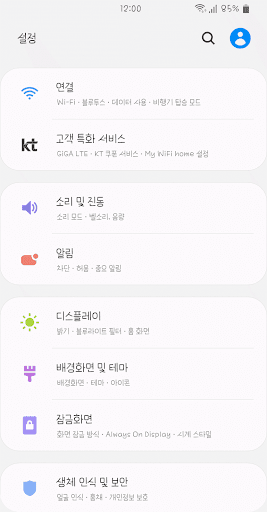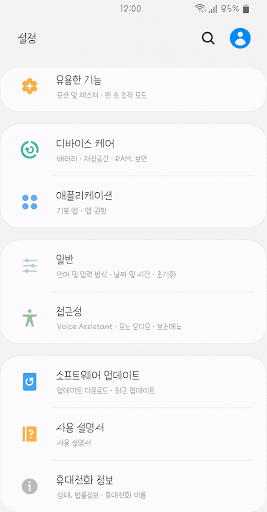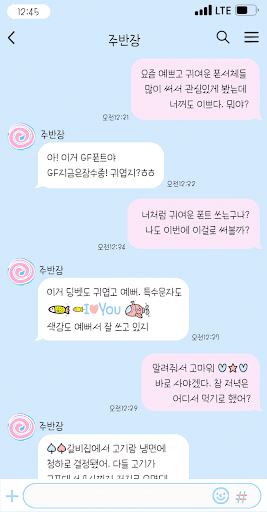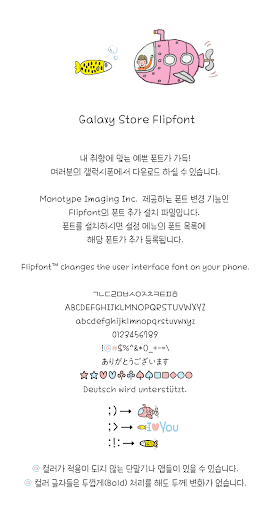
GFNowDiving™ Korean Flipfont
GFNowDiving
It is designed with the motif of a pleasant summer vacation. The main font, which has the motif of diving, is that it has a small and flat final consonant. Conversely, the initial consonant is large and cool. The final consonant and especially the "ㅇ" in it have the feeling of an elongated fish. Have fun with the cool and cute font in the hot summer. (Depending on Android OS or app, color dingbet may not be supported.)